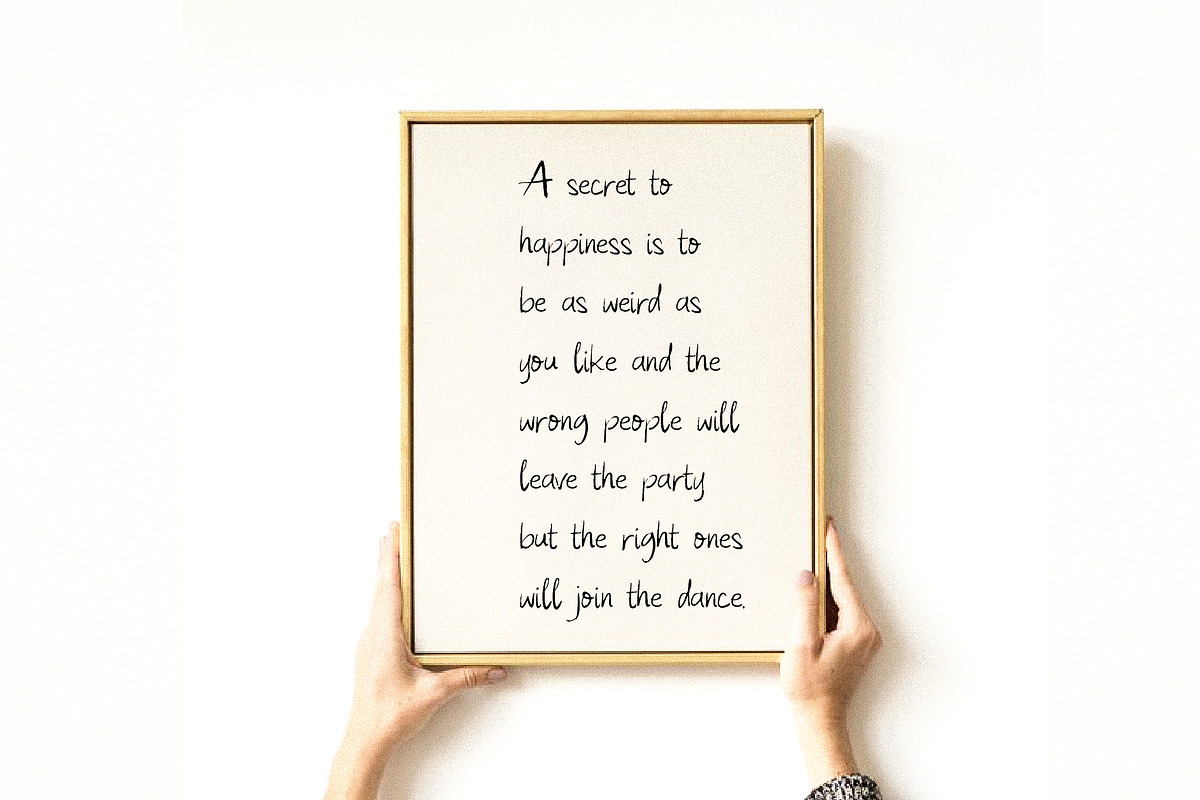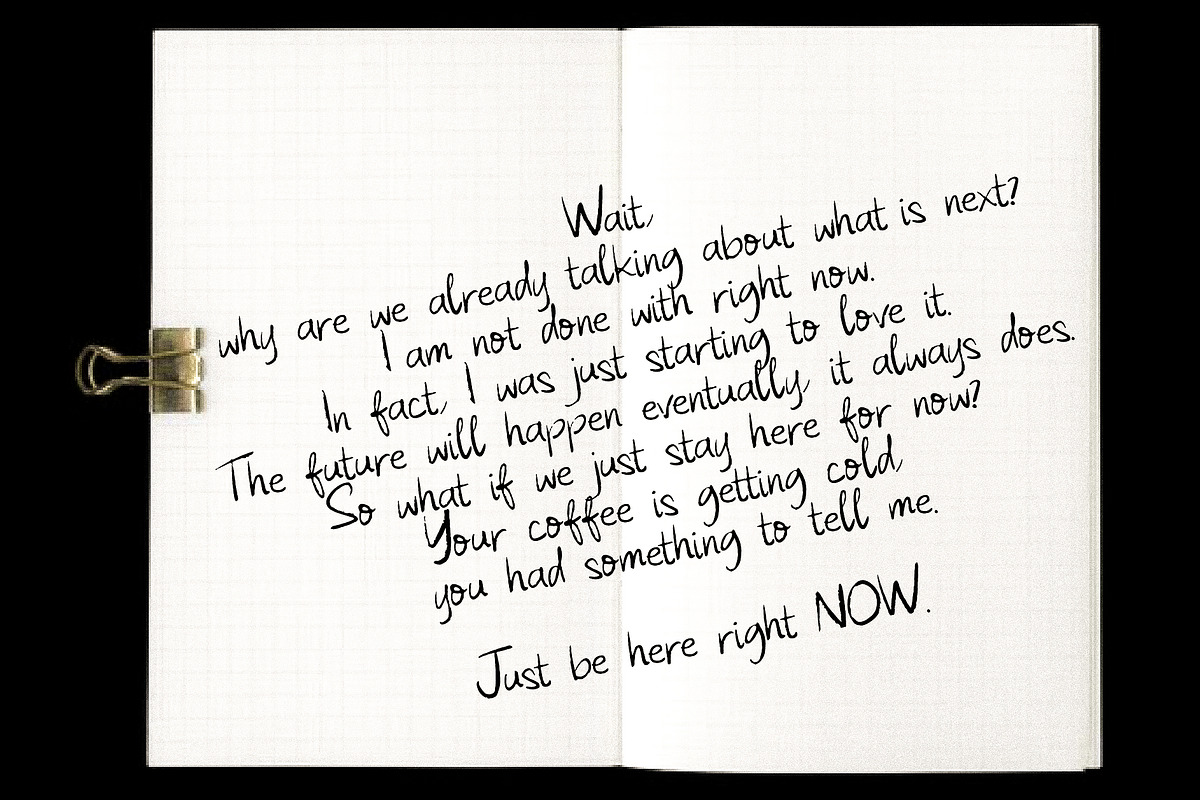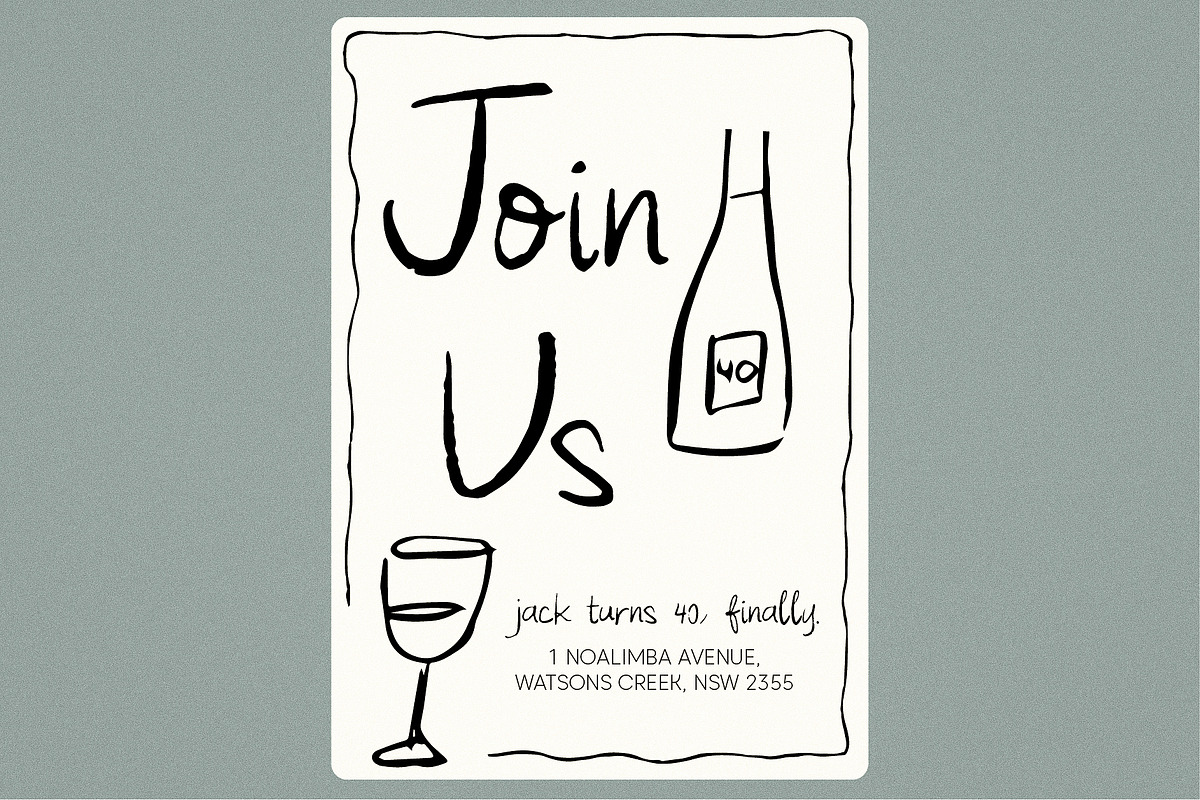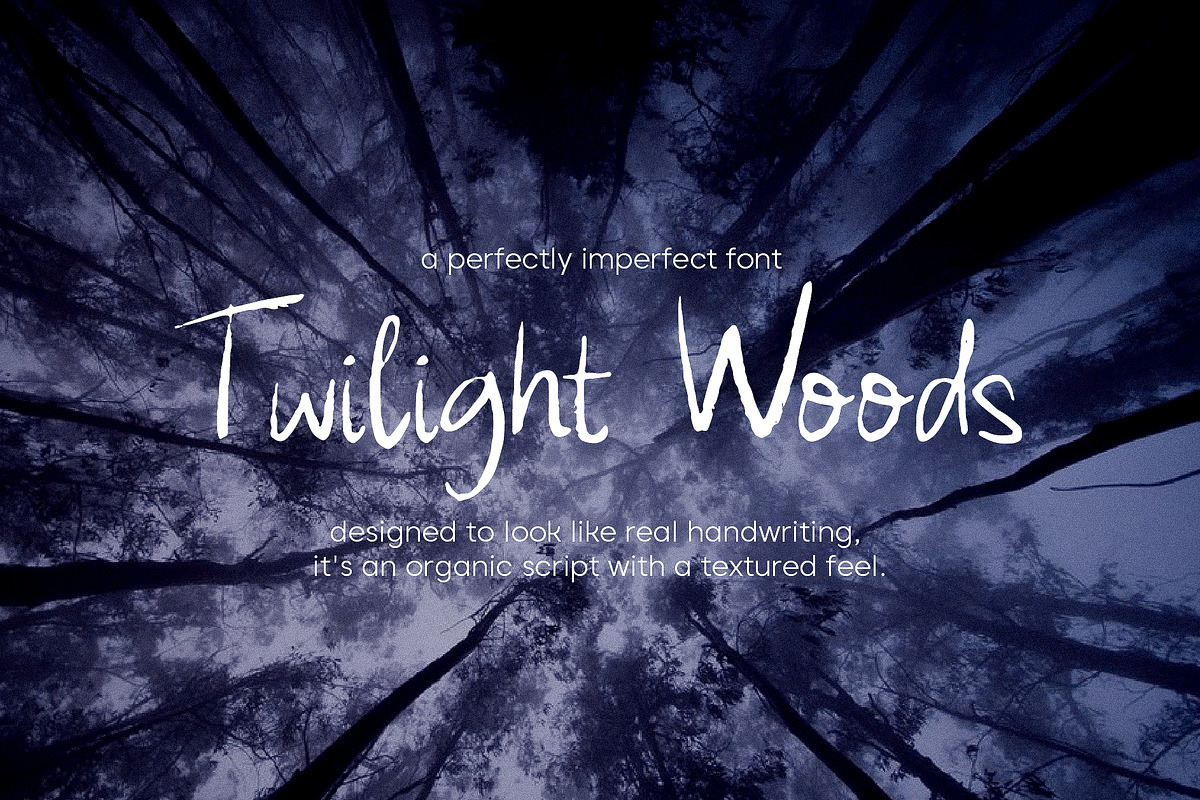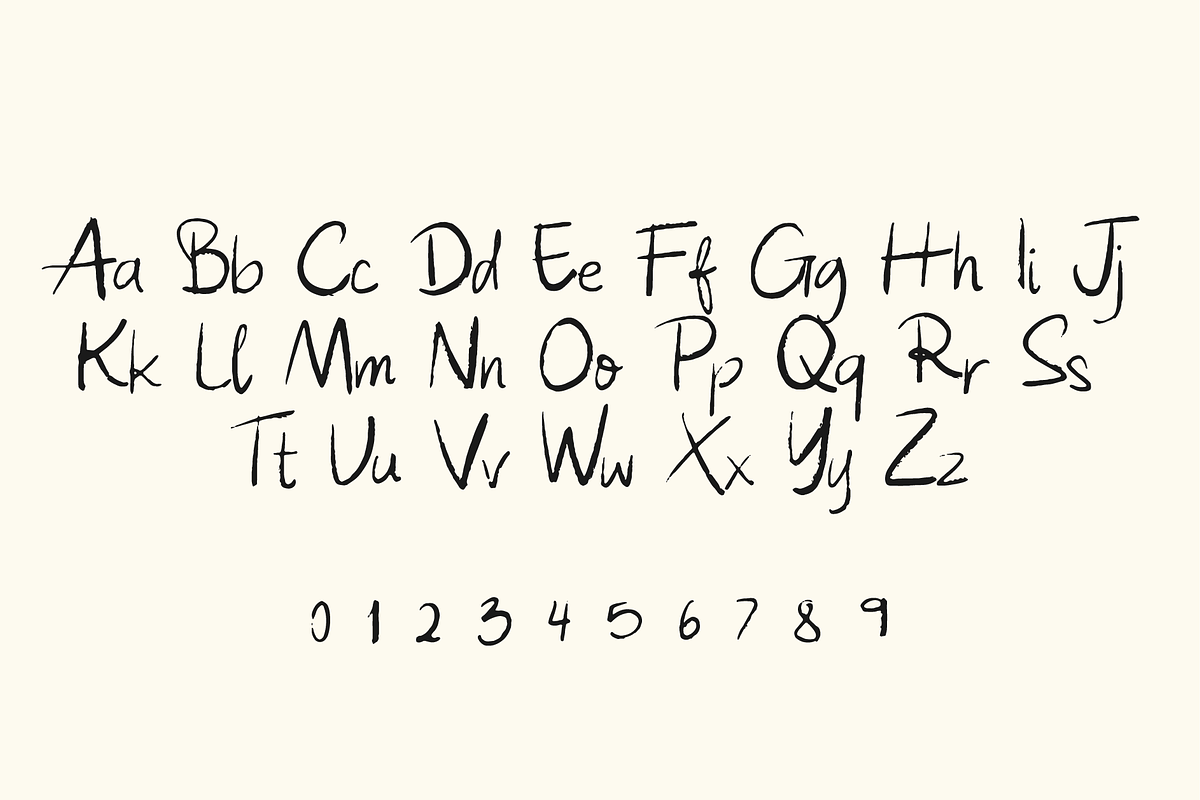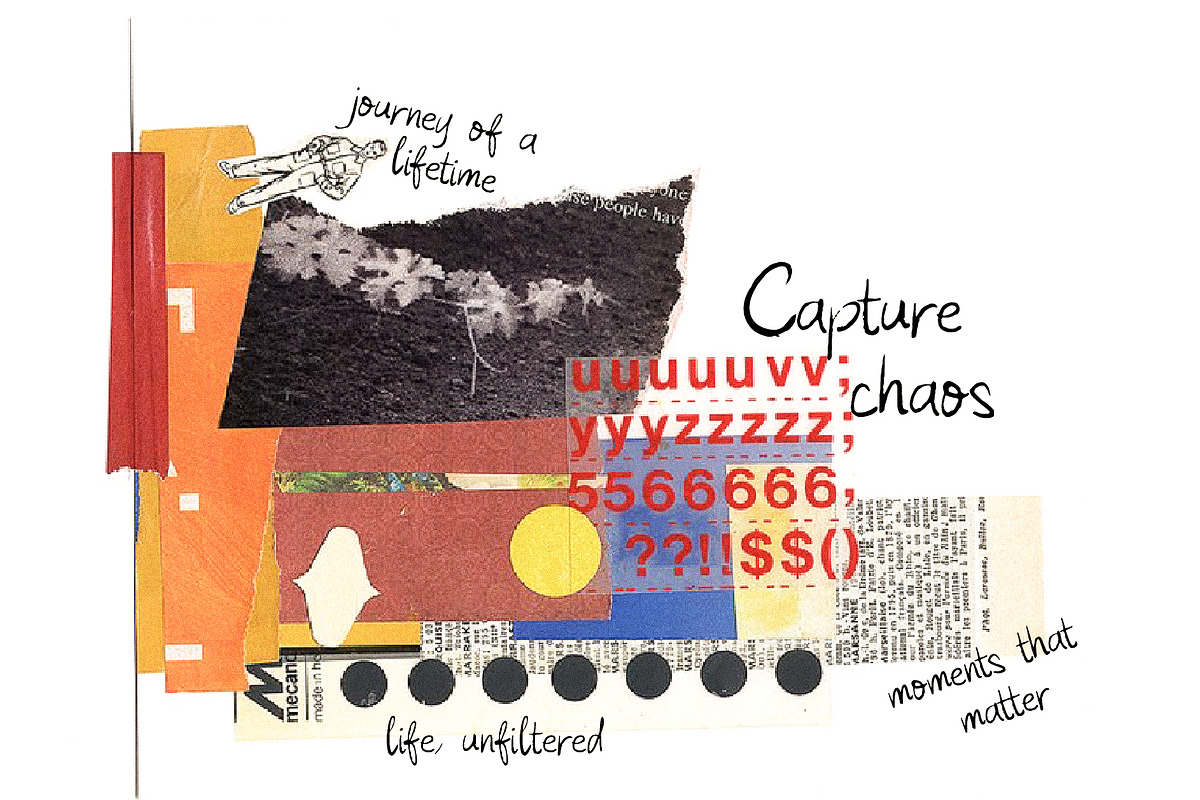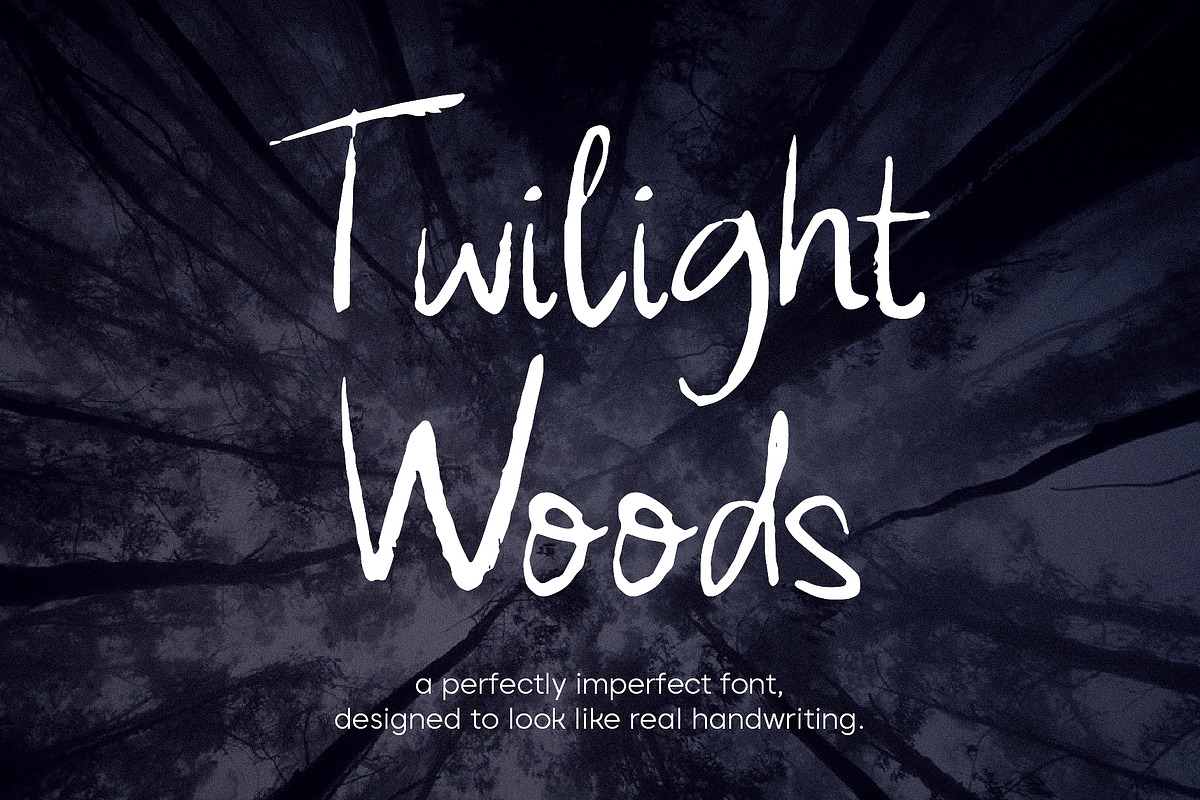
Twilight Woods Handwritten Font
Twilight Woods is a perfectly imperfect font designed to look like real handwriting. This organic script with a textured feel is perfect for greeting cards, wedding stationery, logos, modern websites, apparel design, and more.
Handwritten letters Beginning and end swashes for lowercase letters Thank you for visiting my shop! Feel free to reach out if you have any questions.
Set of standard alphabet Handwritten letters